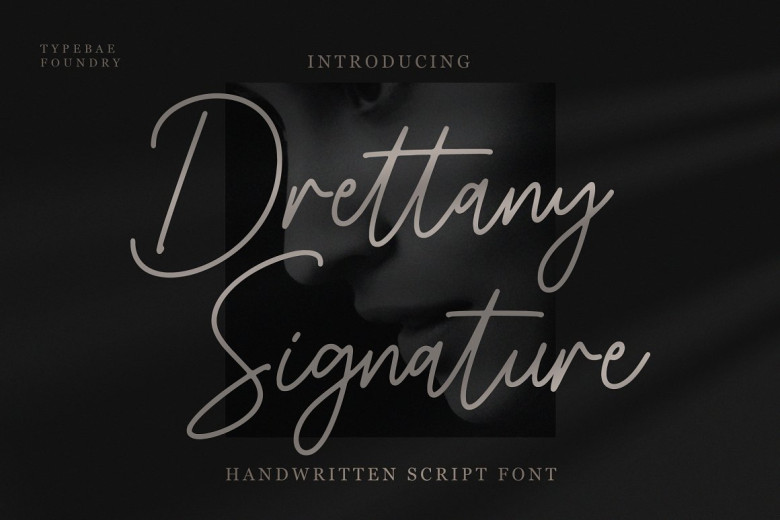
Drettany Signature Font
Drettany Signature is an elegant handwritten script font with an air of sophistication. Featuring elegant curves and delicate strokes, this font adds refinement to any project from branding, invitations or creative endeavors.
Drettany Signature Script Font